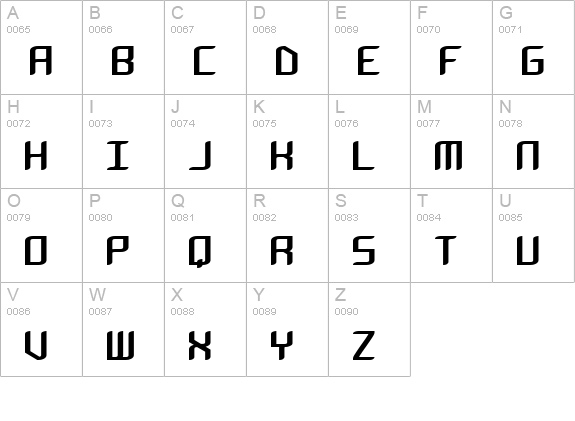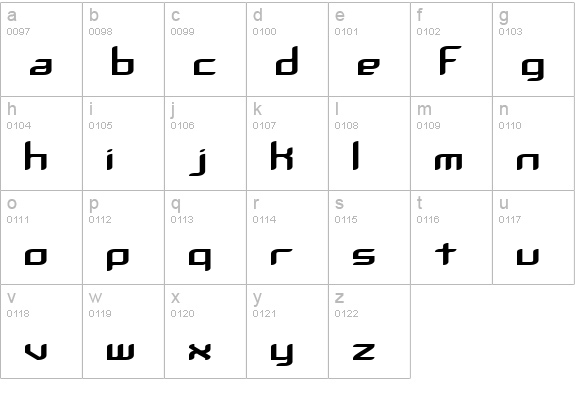
Chemical Reaction A -BRK- font is a stunning display typeface that exudes a sense of energy and modernity. With its sharp edges and unique design, this font is perfect for creating eye-catching headlines, posters, and logos. The font features a bold and dynamic look that commands attention and makes a strong visual impact. What sets Chemical Reaction A -BRK- font apart is its versatility and ability to adapt to various design projects, whether it be for digital or print media. Its distinct style adds a touch of sophistication and creativity to any design. The best part? Chemical Reaction A -BRK- font is freely available to download at FontsMarket.com, allowing you to add this striking typeface to your collection without any cost. Don't miss out on the opportunity to enhance your designs with this unique and bold font.